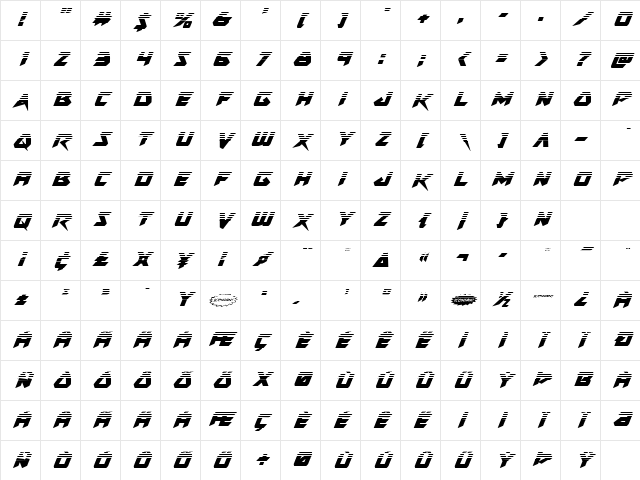
Skirmisher Halftone Italic Italic Free Font
Skirmisher Halftone Italic Italic
Design Context for Skirmisher Halftone Italic
Skirmisher Halftone Italic is a composed and adaptable typeface that performs quietly and consistently across a wide range of design contexts. The slanted form adds forward momentum and visual energy.
Pro Tip: Use Skirmisher Halftone Italic for emphasis, pull quotes, and subheadings where its slanted energy can add rhythm to the layout.